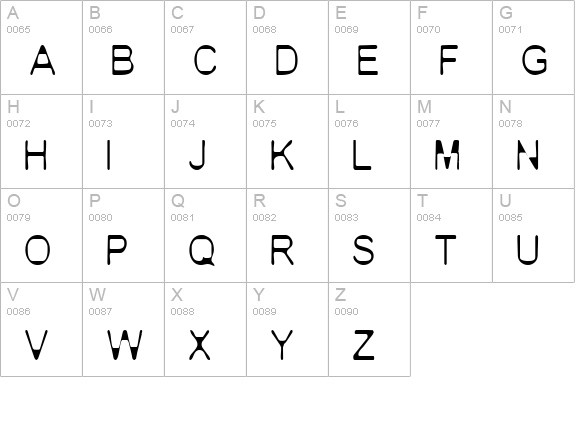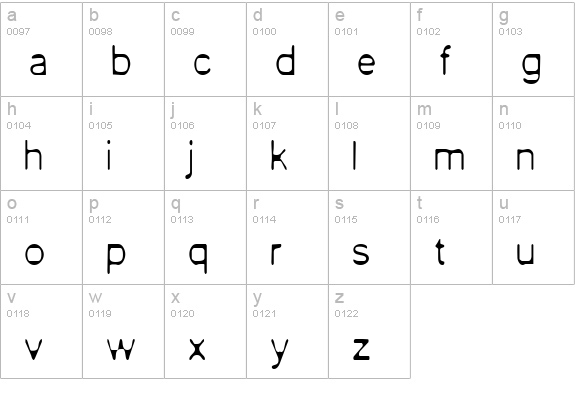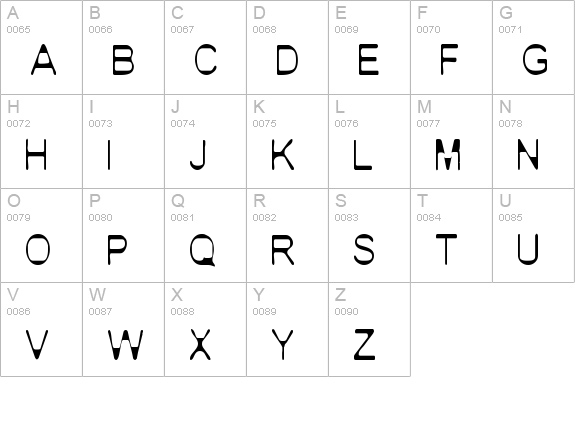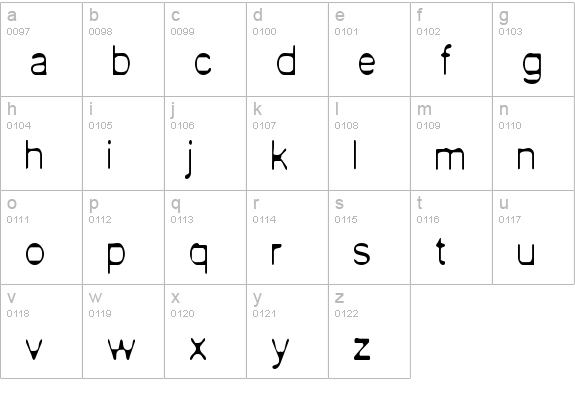
BN BoyfriEnd Font Details
Introducing BN BoyfriEnd font, a stylish and modern typeface that will add a touch of sophistication to any design project. This versatile font features clean lines and a sleek appearance, making it perfect for a wide range of applications, from branding to marketing materials. What sets BN BoyfriEnd font apart is that it is available for free download at FontsMarket.com. This means you can easily access this high-quality font without any cost, making it a valuable addition to your font library. With its elegant design and easy readability, BN BoyfriEnd font is sure to elevate your projects and make a lasting impression on your audience. Download it today and take your designs to the next level!